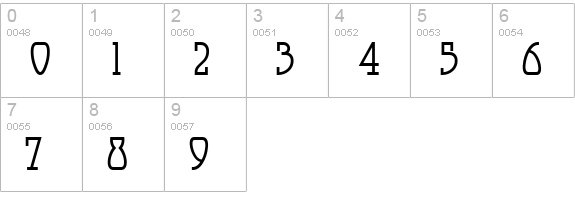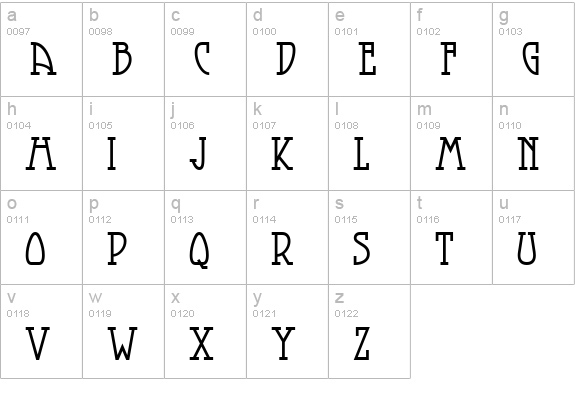
SmorgasbordNF Font Details
Introducing SmorgasbordNF, a versatile and captivating font that will ignite your creativity. This font embodies a harmonious blend of modernity and classic elegance, making it perfect for a wide range of design projects. Whether you're crafting a logo, designing a website, or creating eye-catching advertisements, SmorgasbordNF will effortlessly add a touch of sophistication to your work. With its fluid and flawless letterforms, SmorgasbordNF exudes a sense of effortless style. This font's clean lines and balanced proportions make it highly legible, ensuring that your message is conveyed with clarity and impact. Its subtle curves and refined details add depth and personality, giving your designs a distinct visual identity. SmorgasbordNF offers a vast array of stylistic options, allowing you to effortlessly customize your typography to suit your unique vision. From elegant and refined to bold and expressive, this font offers endless possibilities for creative expression. Its extensive character set includes alternate glyphs and ligatures, enabling you to create stunning and original compositions. One of the most remarkable features of SmorgasbordNF is that it is free! Yes, you read that right. This extraordinary font is freely available to download at FontsMarket.com. Now you can elevate your design projects without worrying about breaking the bank. Embrace the freedom to explore and experiment, knowing that SmorgasbordNF is there to empower your creativity without any financial constraints. So, what are you waiting for? Unleash your imagination, download SmorgasbordNF from FontsMarket.com, and embark on a design journey that will captivate and inspire. With its timeless elegance, versatile nature, and the freedom it offers, SmorgasbordNF is the perfect choice for all your typographic needs. Let this font be your creative companion, and watch your designs come to life with unparalleled beauty and impact.